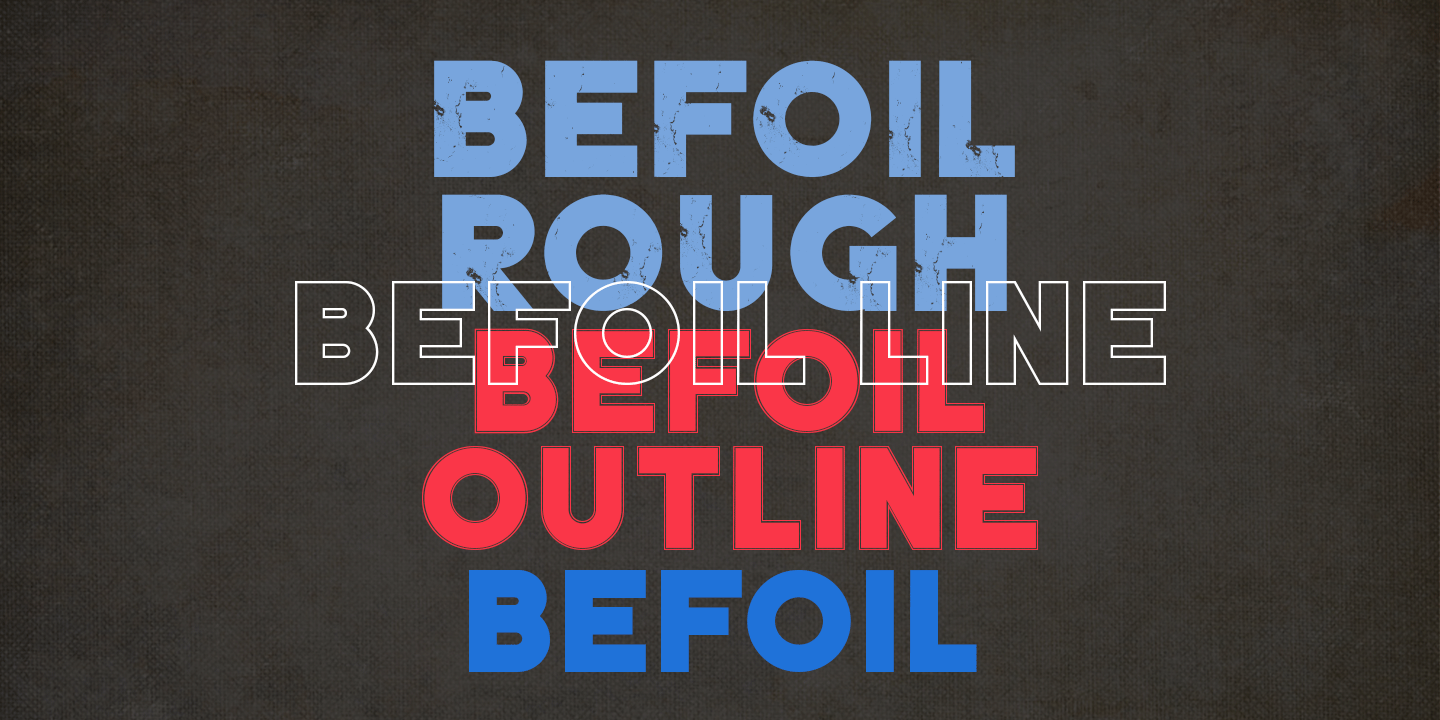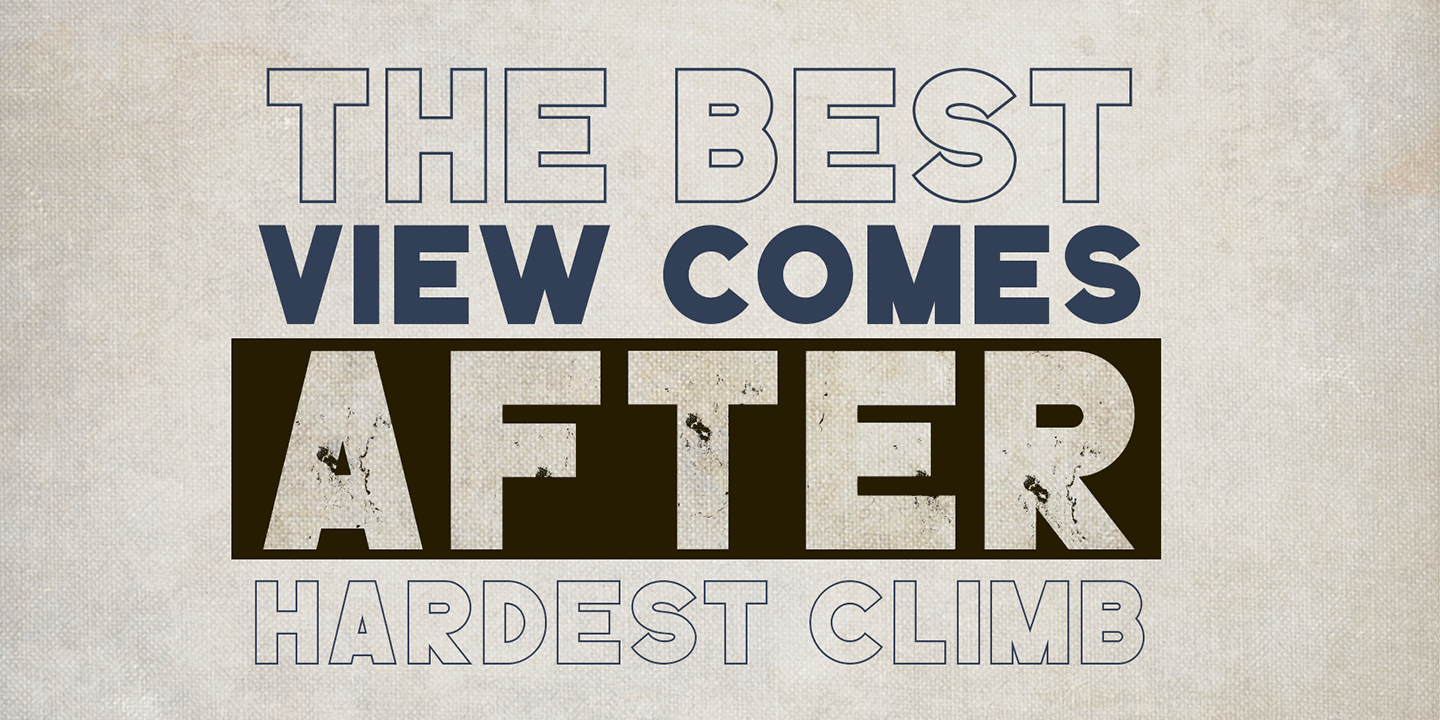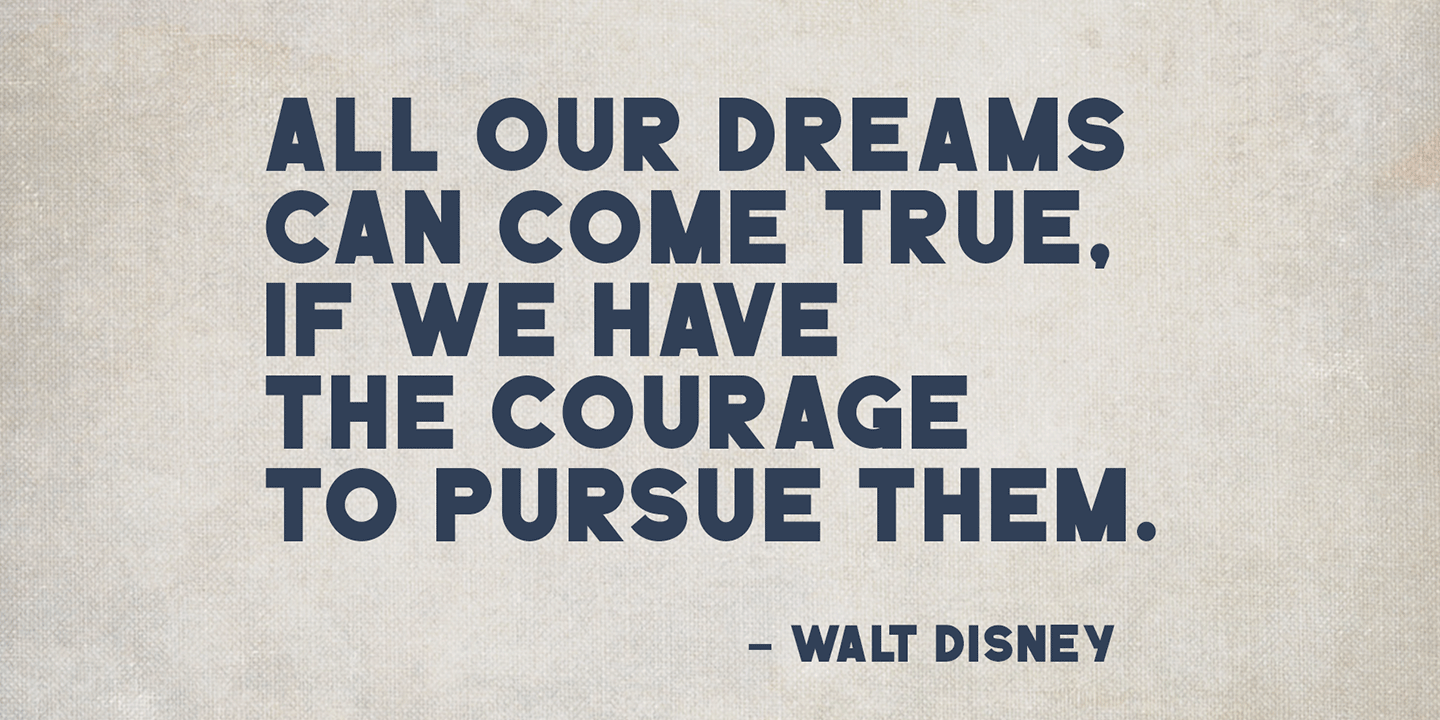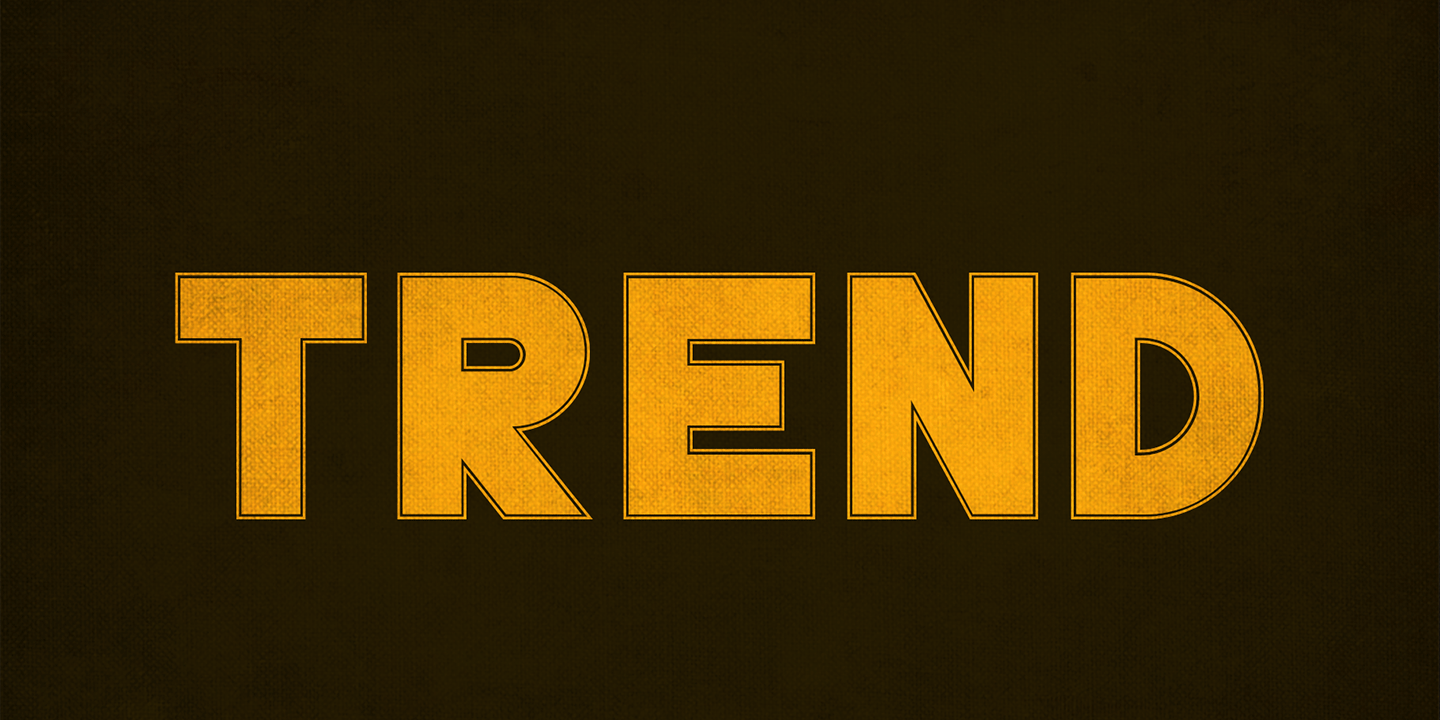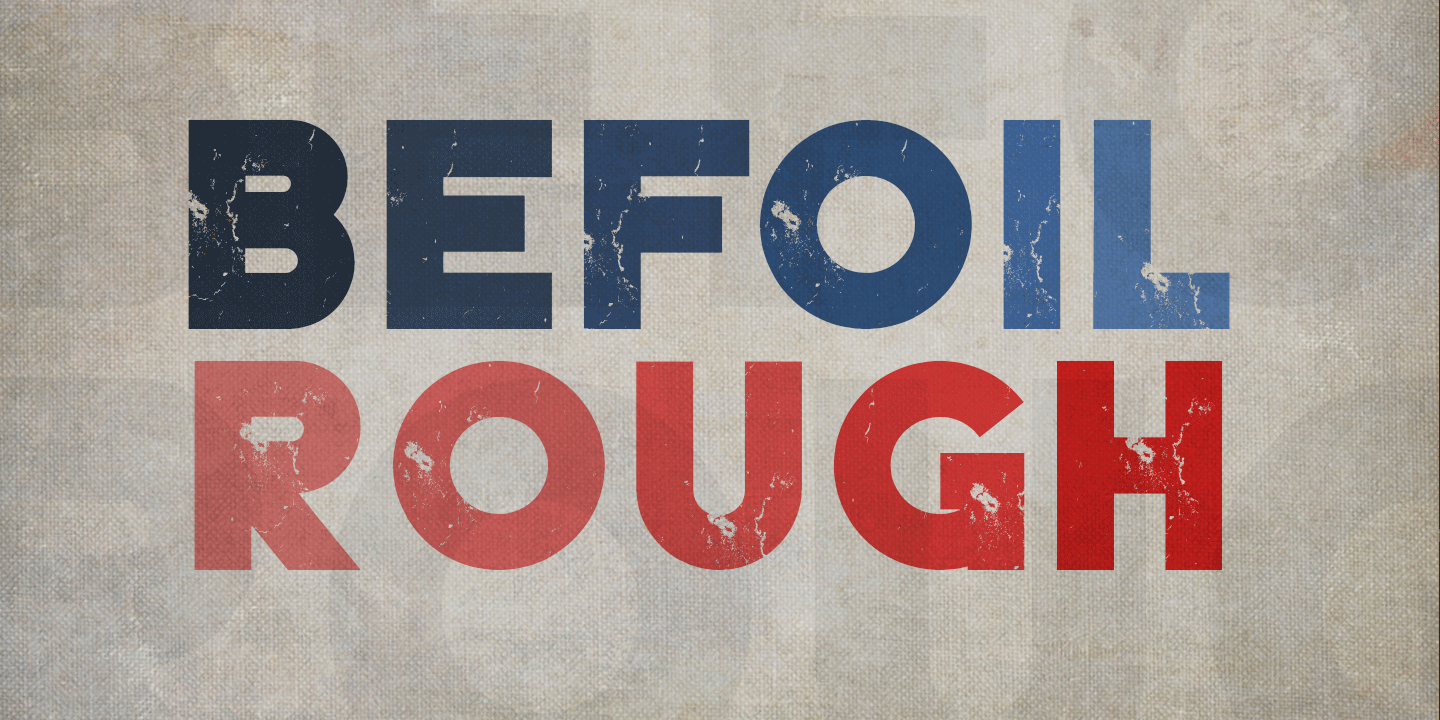
BEFOIL
BEFOIL is a bold sans serif font with strong, confident, and refined character shapes. It delivers a clean and elegant look, making it a great choice for logos, quotes, advertisements, branding, and more.
Designed with versatility in mind, BEFOIL gives you the character and style you need to create bold, memorable typography for a wide range of projects.
Features
- Bold sans serif style
- Stylistic alternates
- Ligatures
- Uppercase letters
- Numbers
- Punctuation
- Multilingual support
Font Styles Included
- BEFOIL Normal
- BEFOIL Line
- BEFOIL Outline
- BEFOIL Rough
Best Uses
BEFOIL works beautifully across branding, logos, magazines, film titles, posters, advertisements, packaging, and creative display designs. The different styles give you room to explore a wide range of applications, while the outline and rough versions add a modern, expressive feel to any project.